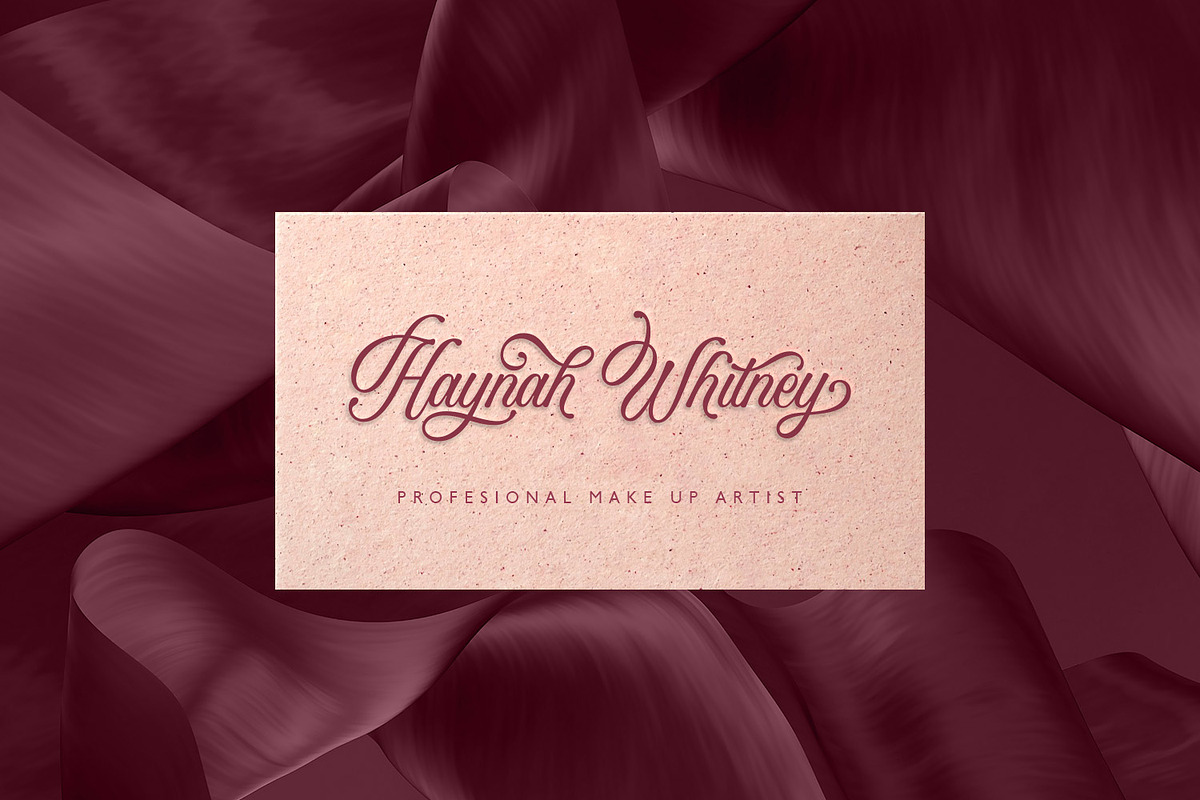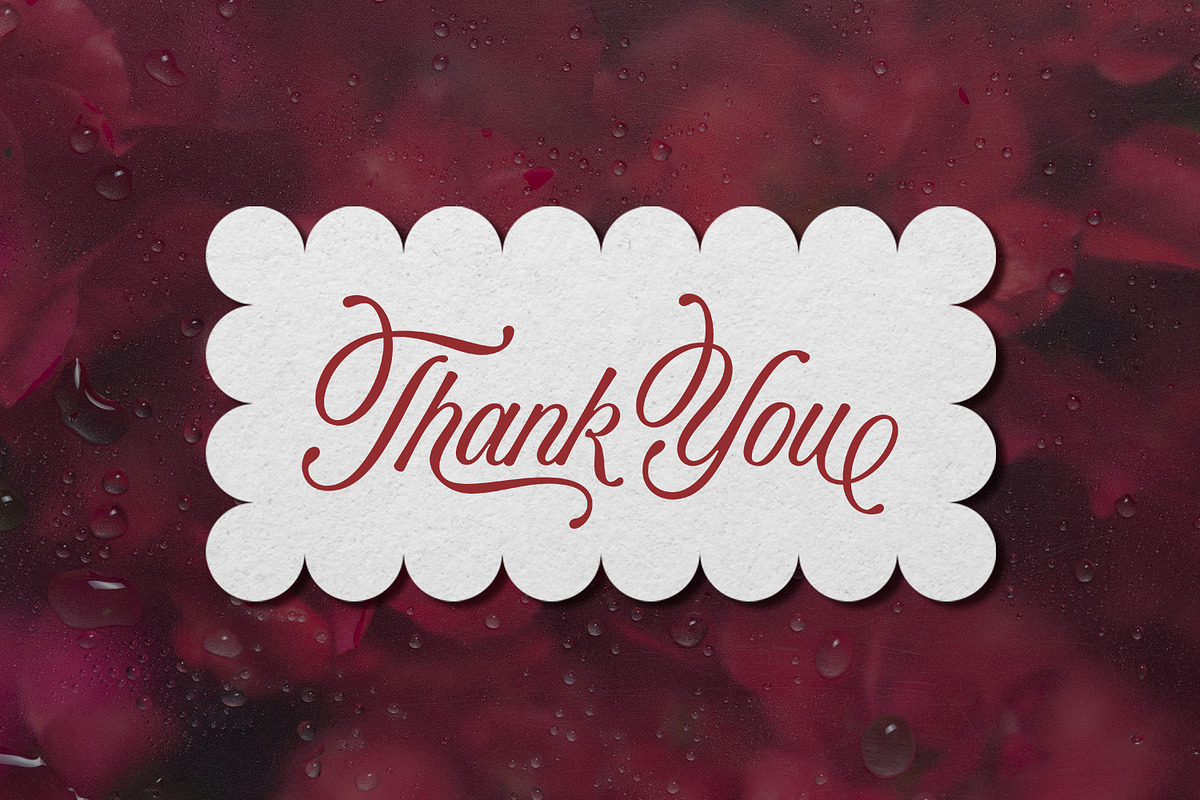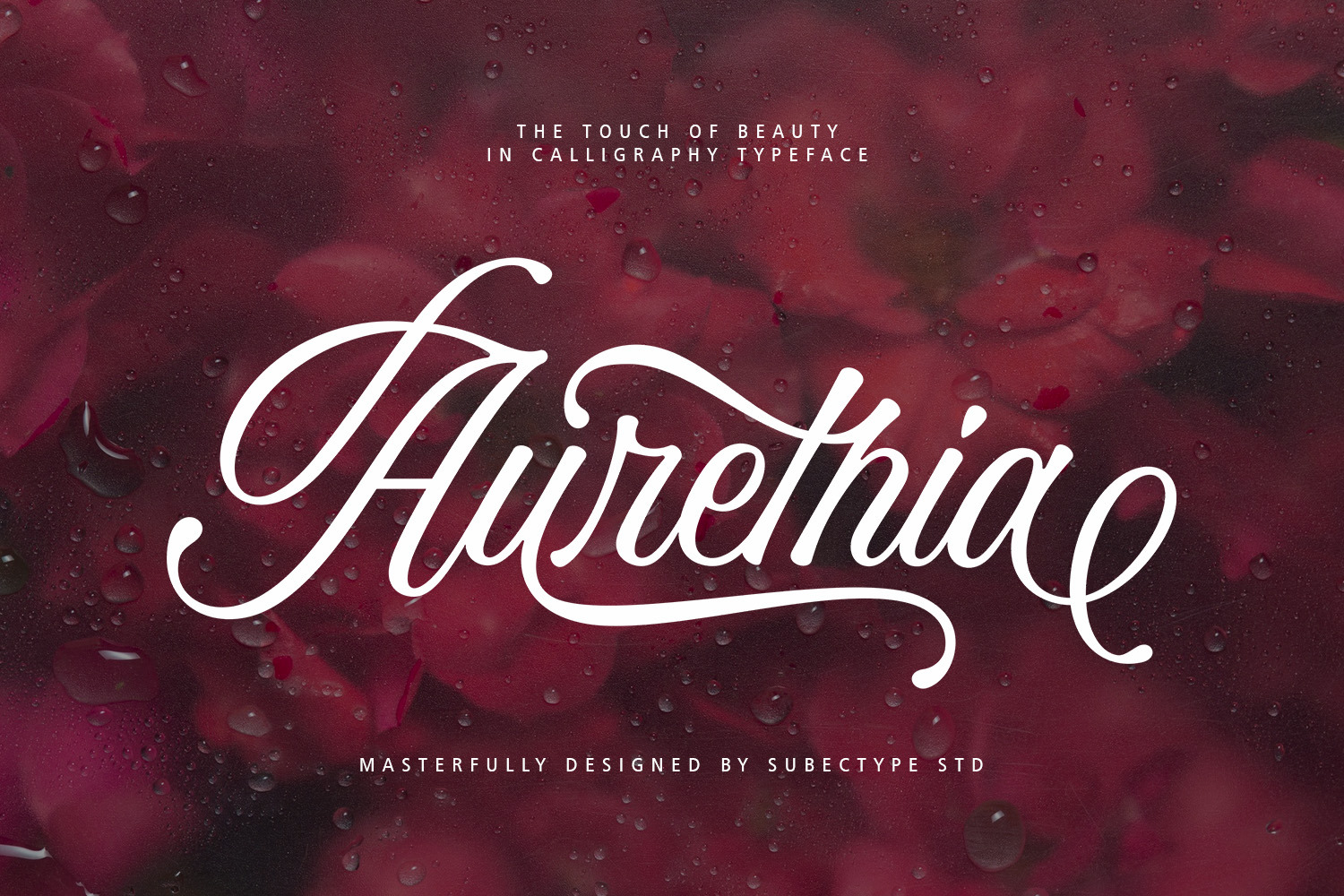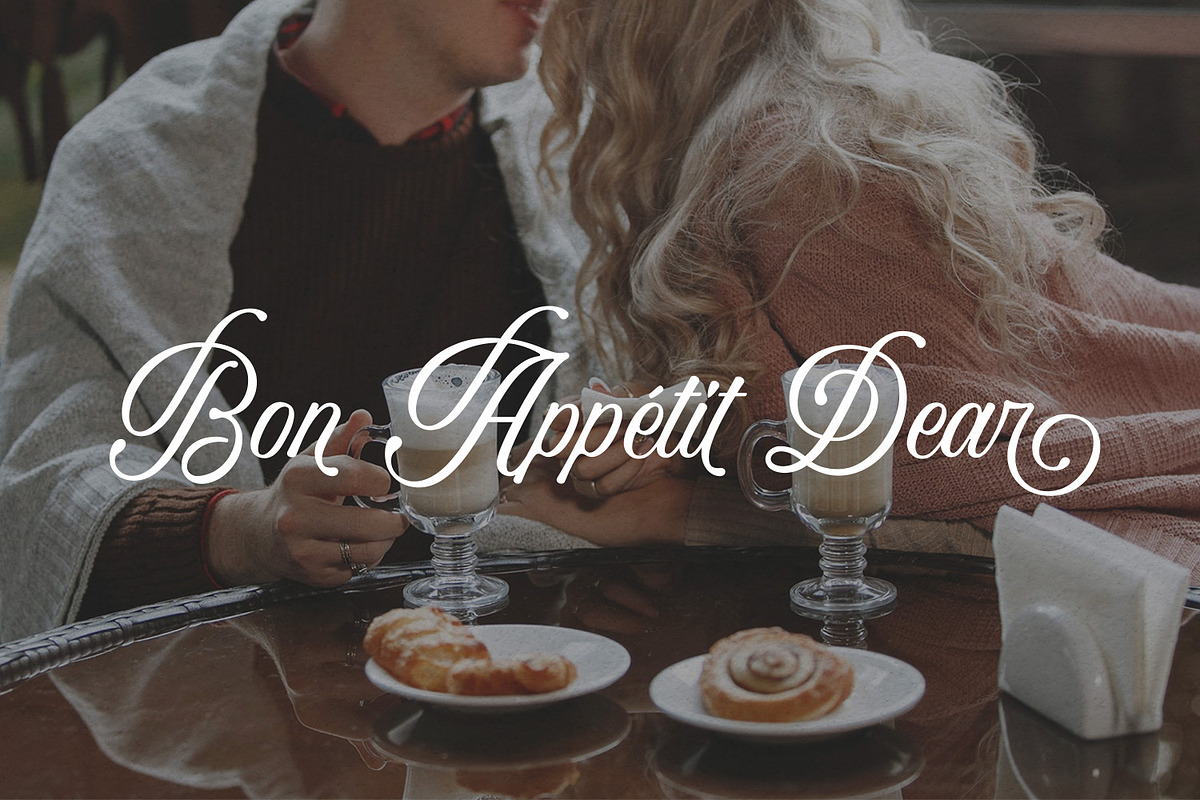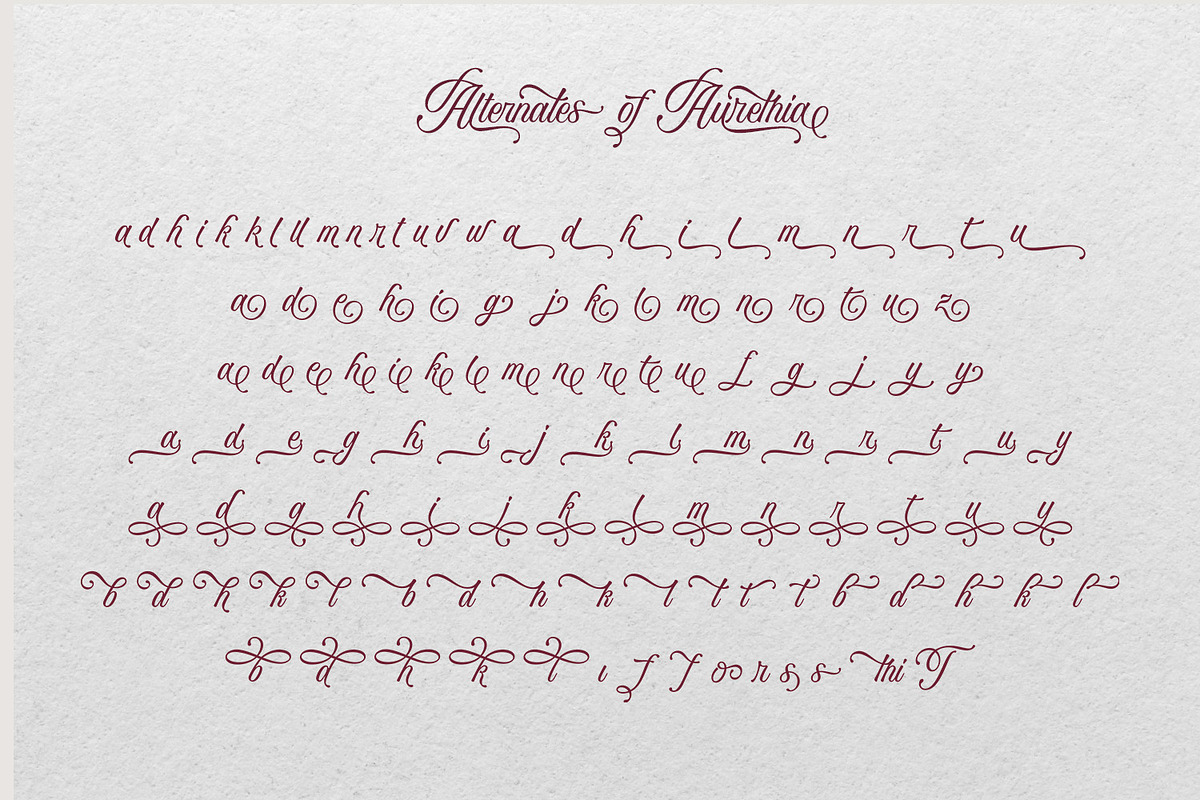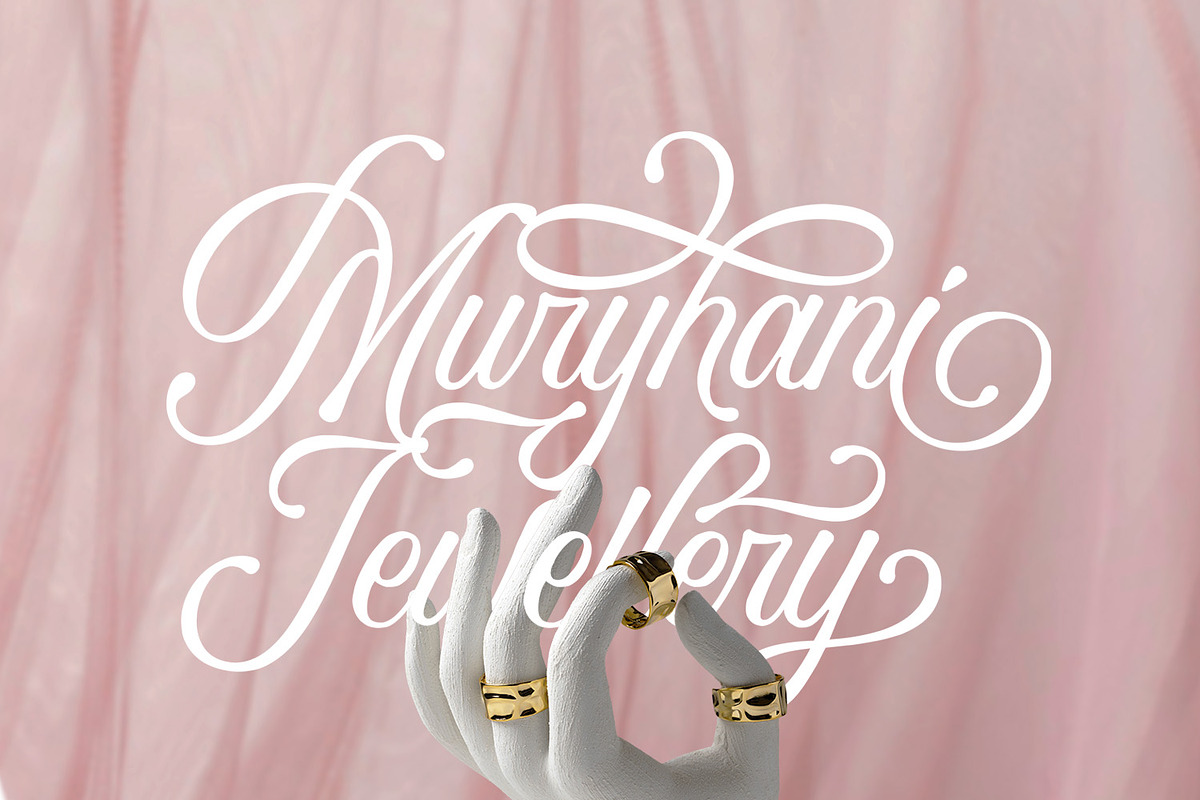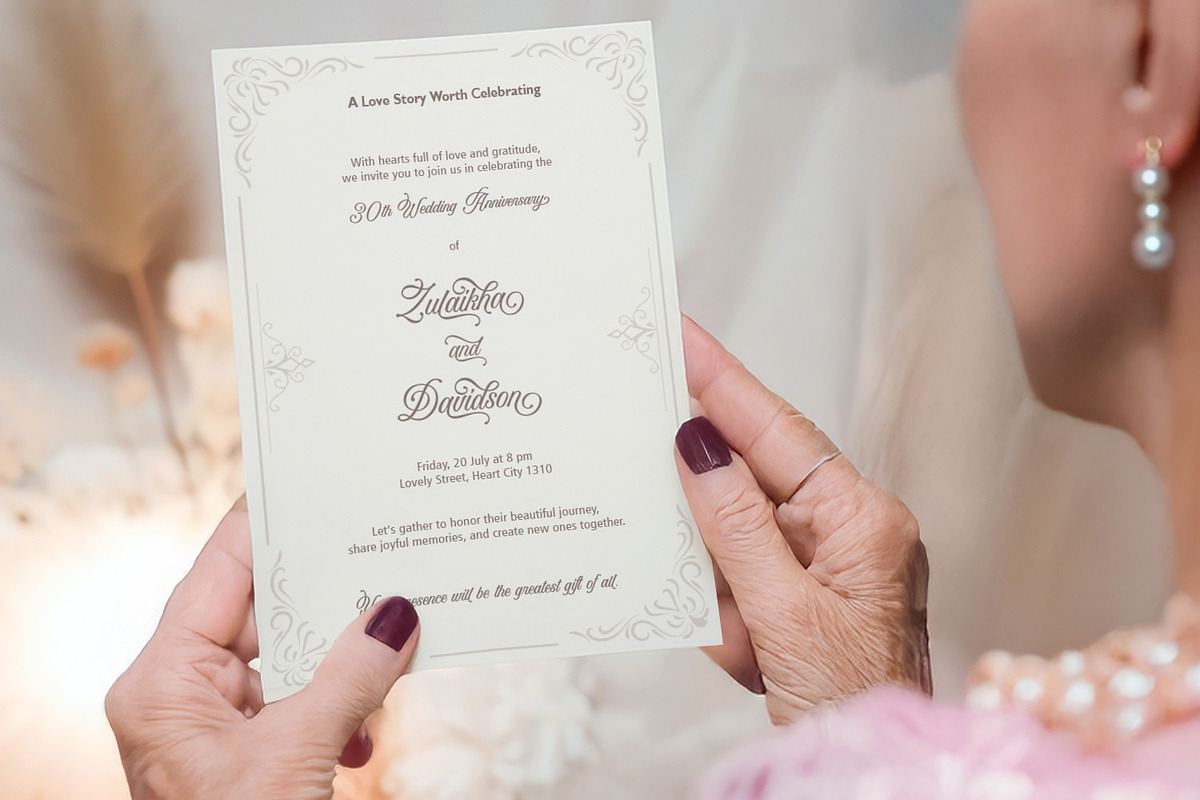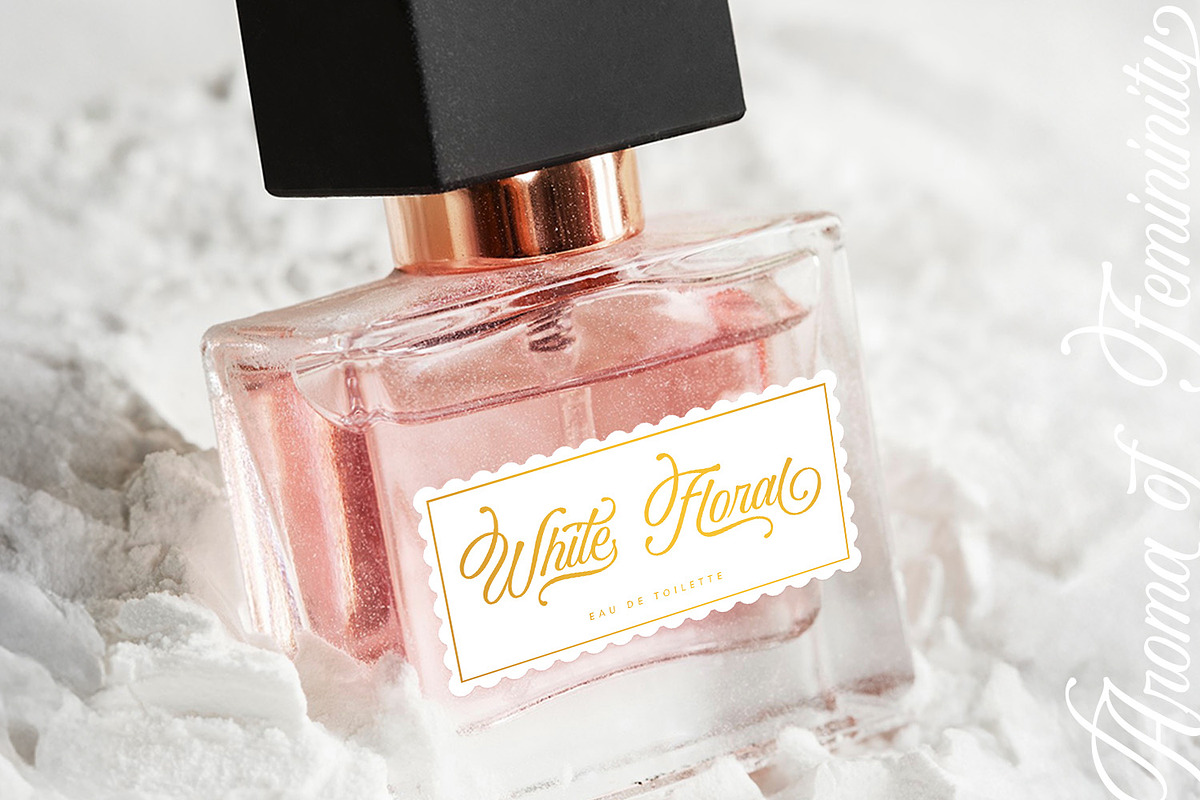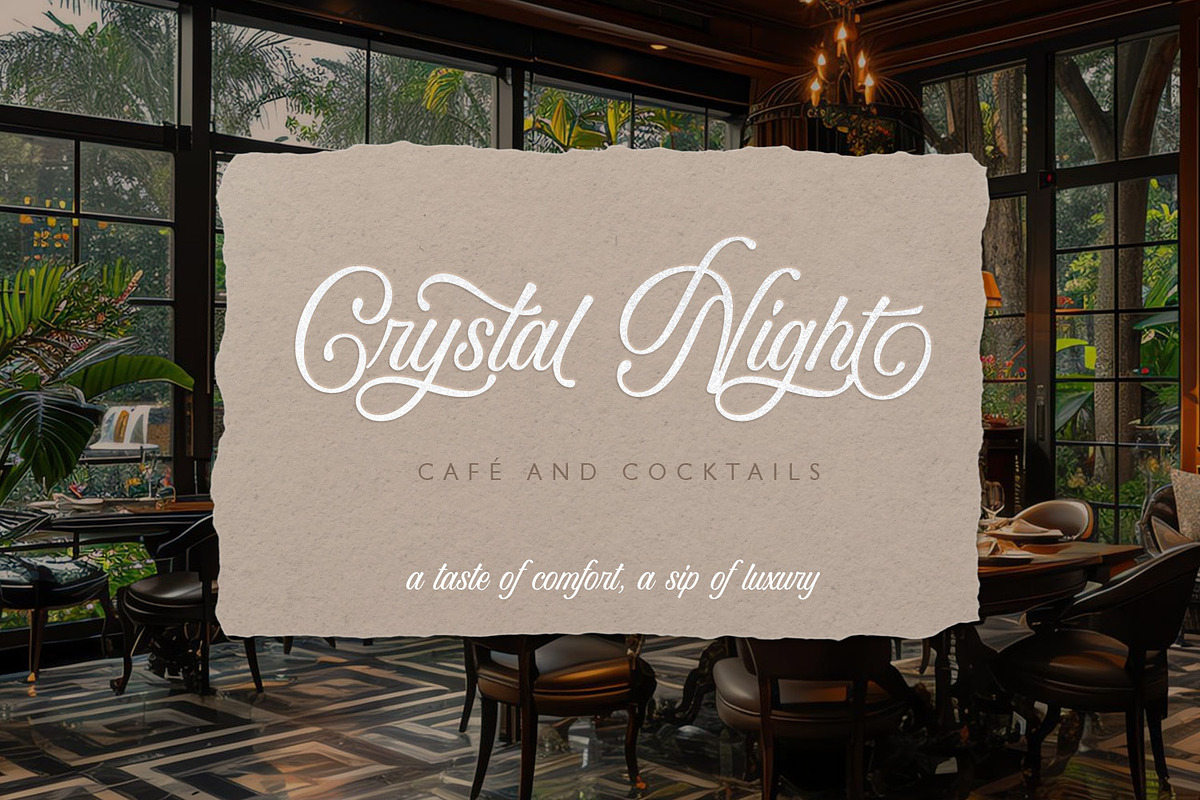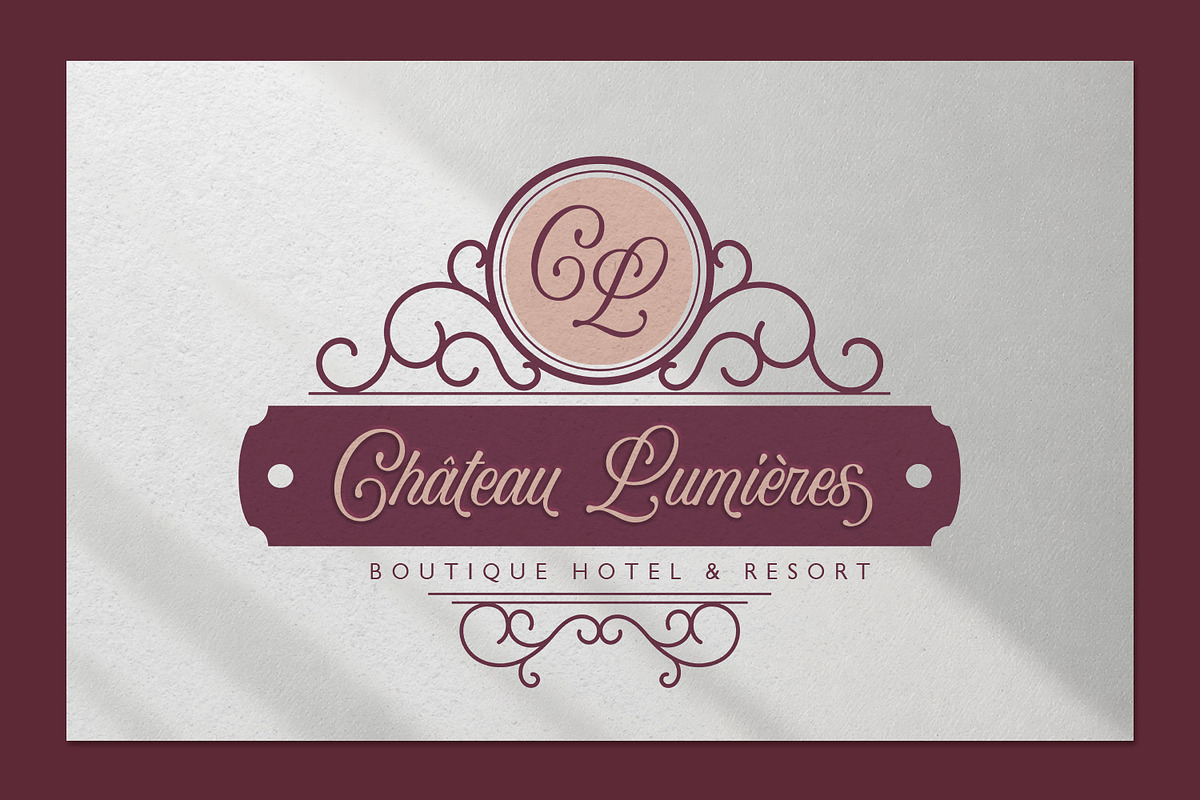
Aurethia - Beauty Calligraphy Font
Aurethia is a Chic calligraphy font, described by an Love touch, perfect for Wedding party, invitation, Signature brand, and all of project with beautiful calligraphy font. Fall in love with its incredibly distinct and timeless style and use it to create spectacular designs!